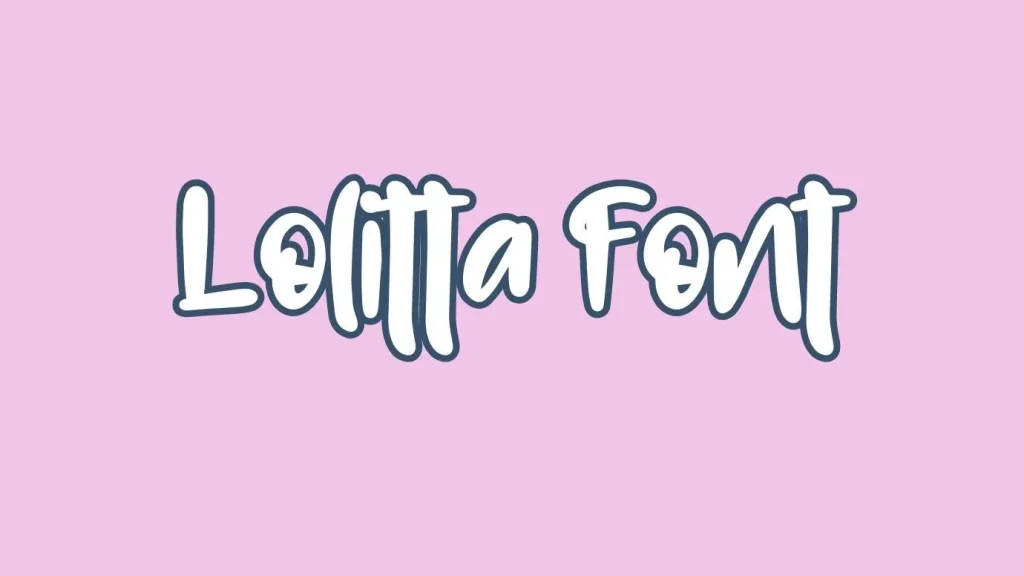
Garisman Studio created this unique script design. Lolitta Font style will allow the user to create various designs in different languages. This font moreover comprises trendy glyphs.
With its beautiful characters, the typeface will include more beauty in your design. Get this amazing textual style family free for private use. The letters of this typeface, have a very sleek look. The characters in this typeface have the right height, width, and idealized space between the letters.
How to Use Lolitta Font?
This typeface can be used for many projects, including Books, posters, banners, brochure layouts, and much more. This style will give a fashionable and attractive touch to the project.
This typeface may be used to create trademarks, booklet layouts, marriage cards, and invites. You may use this design to create billboards and cinematic titles, visuals, and game creation.
It gives your project an incredibly unusual look. The surprising thing is that the designers use thick angles not only on the corners but also on the exterior of the characters.
You can use this typeface both on the web and in print media. Also, you can use its online font generator tool. This style allows you to create graphic text, logos for websites, template designs, and much more. Using this typeface makes it easy to create readable text, notes, and so on.
This is an iconic typeface that has a beautiful design. It’s often used for branding publicity and marketing purposes. You can also utilize this typeface for developing invitations, blog designs, advertising, decor, artwork quotes, card designs, birthday card designs, mug designs, and so on.
Is Lolitta Font have great readability?
This typeface has unbelievable significance. It may be an extremely flexible textual style that can be clearly seen from a distance.
Is Lolitta Font easy to use?
The font style is very easy to use, apply this textual style to any project that needs a unique appearance.